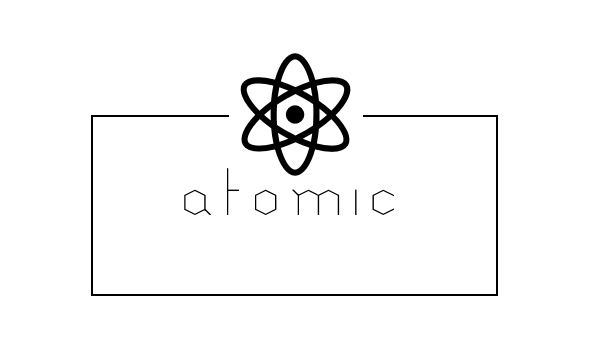
Atomic? Chemical? A font for bees with intertwining legs that allow to hold (on to) things :D
An airy look and fine lines make this font easy to read  ;)
Looks good
@time.peace - Aptly named; reminds me of my organic chemistry days, drawing structural formulas for various compounds...  :^)
Great font! The /g looks a tiny bit unbalanced, maybe move the link to the left or flip it over? Otherwise it's perfect :)
Ah, yes. I like this one ^3^
It's cute. I love the g. I look for unique Rr,Kk,Qq, Gg, and Nn's most of all. I'm no expert, but a bad 'Qq' makes me nauseous. :D